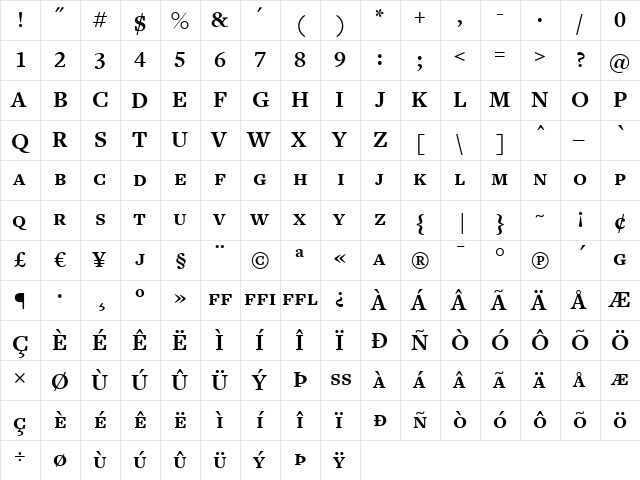
FreightText BoldSC
| Foundry | Joshua Darden & Phil's Fonts, Inc |
| Designer | Joshua Darden |
Design Context for FreightText Typeface
FreightText is a composed and adaptable typeface that performs quietly and consistently across a wide range of design contexts. The heavy weight commands attention and anchors typographic hierarchies.